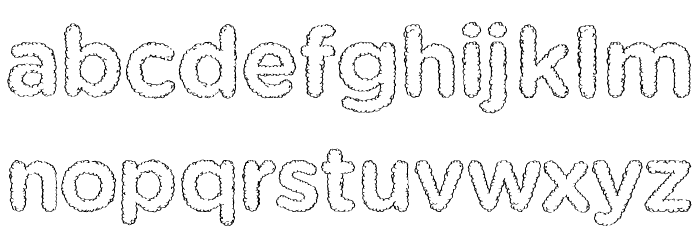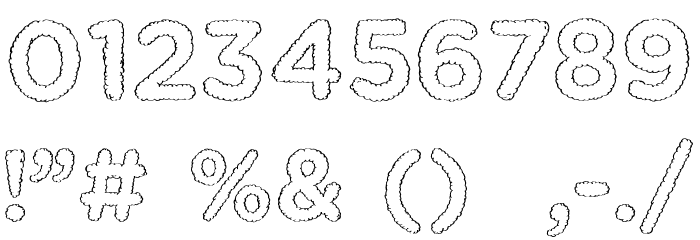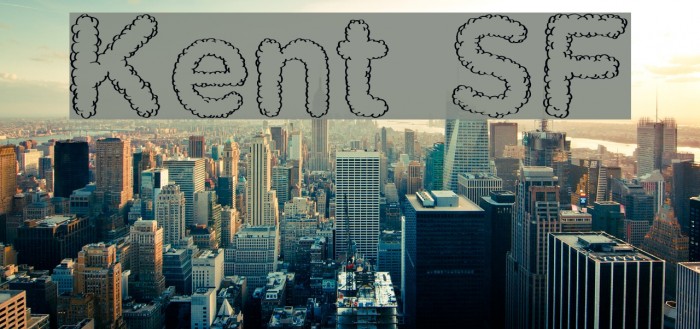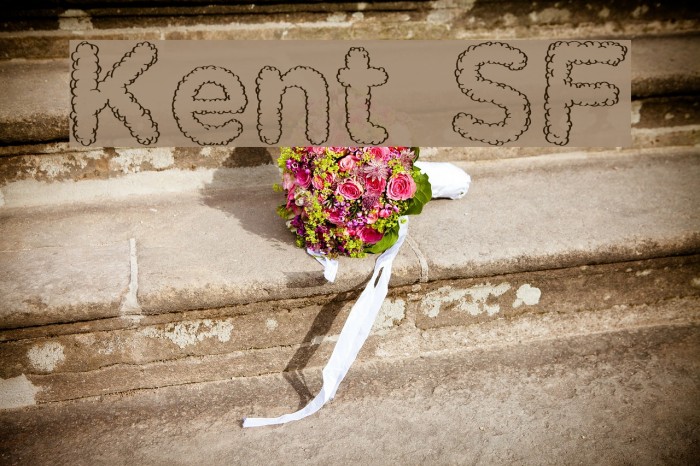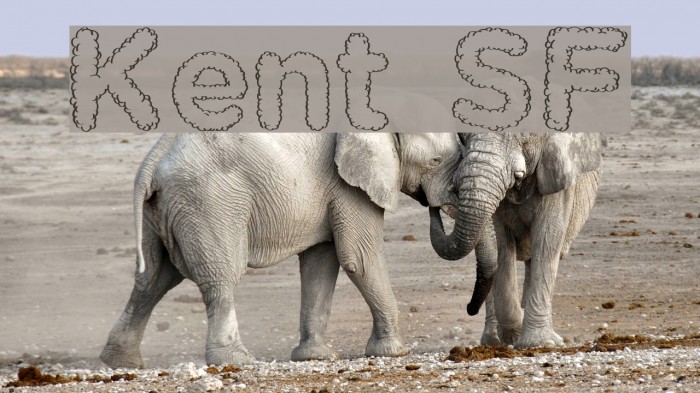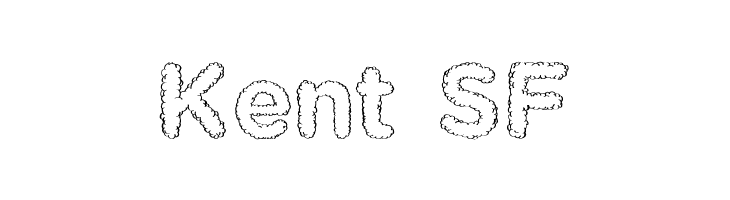
Kent SF Font
This playful and decorative font features a unique outline style with a textured, cloud-like appearance. The characters are rounded and bold, giving them a friendly and approachable feel. The uppercase and lowercase letters maintain consistent proportions, while the numerals and special characters complement the overall design. The font's whimsical nature makes it suitable for creative projects that require a touch of fun and imagination. Its distinct style ensures that it stands out, making it ideal for eye-catching headlines or branding materials.
A playful, cloud-textured outline font with rounded, bold characters.
- Proposed Projects: Ideal for children's book covers, playful branding, party invitations, and creative posters.